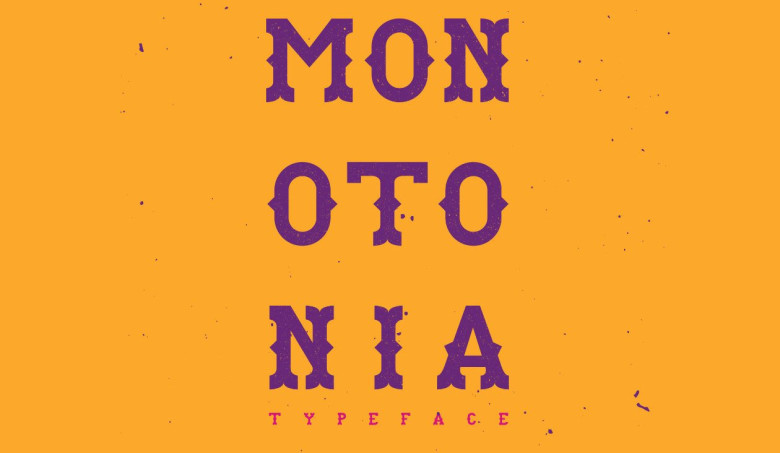
Monotonia Display Typeface
lntroducing Monotonia Typeface! Monotonia designed and shared by Eduardo da Floresta. Monotonia is a display typeface. Monotonia is suitable for Christmas cards, wedding invitations, branding, stationery, blog design, custom art, custom stamps, custom embossers, or any design purpose. You can use it for your personal use, or for a commercial project.